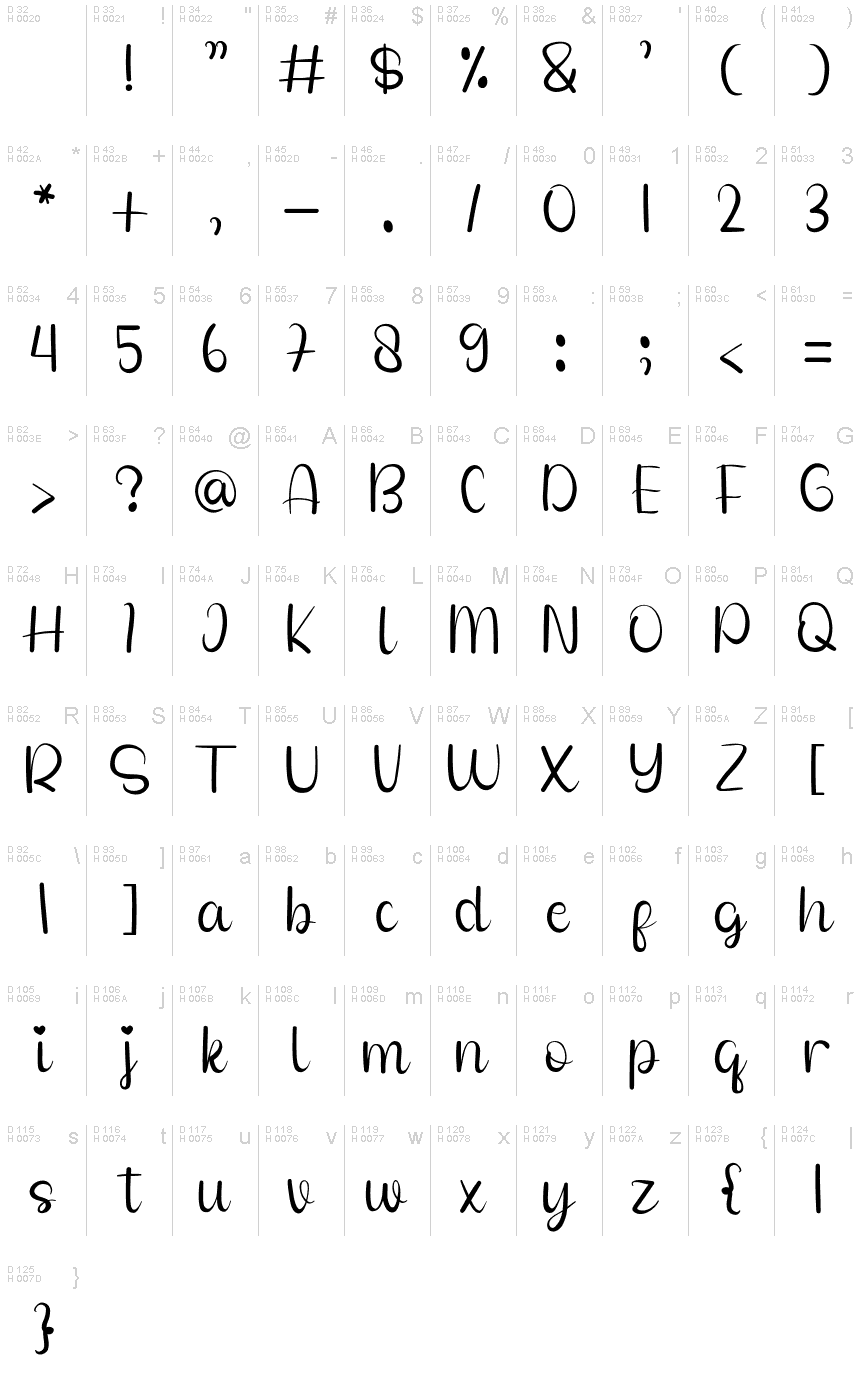
Staycation
Staycation, an exquisite calligraphy font crafted by Share Font, exudes a sense of elegance and sophistication. Its semi-light weight adds a delicate touch to any design project. This versatile font is perfect for creating wedding invitations, luxury branding, and high-end fashion editorials. With its graceful strokes and flowing curves, Staycation evokes a sense of tranquility and relaxation, making it an ideal choice for spa brochures or travel magazines. Whether it's crafting a logo for a boutique hotel or designing greeting cards that invoke wanderlust, Staycation will bring refined beauty to your creative endeavors.